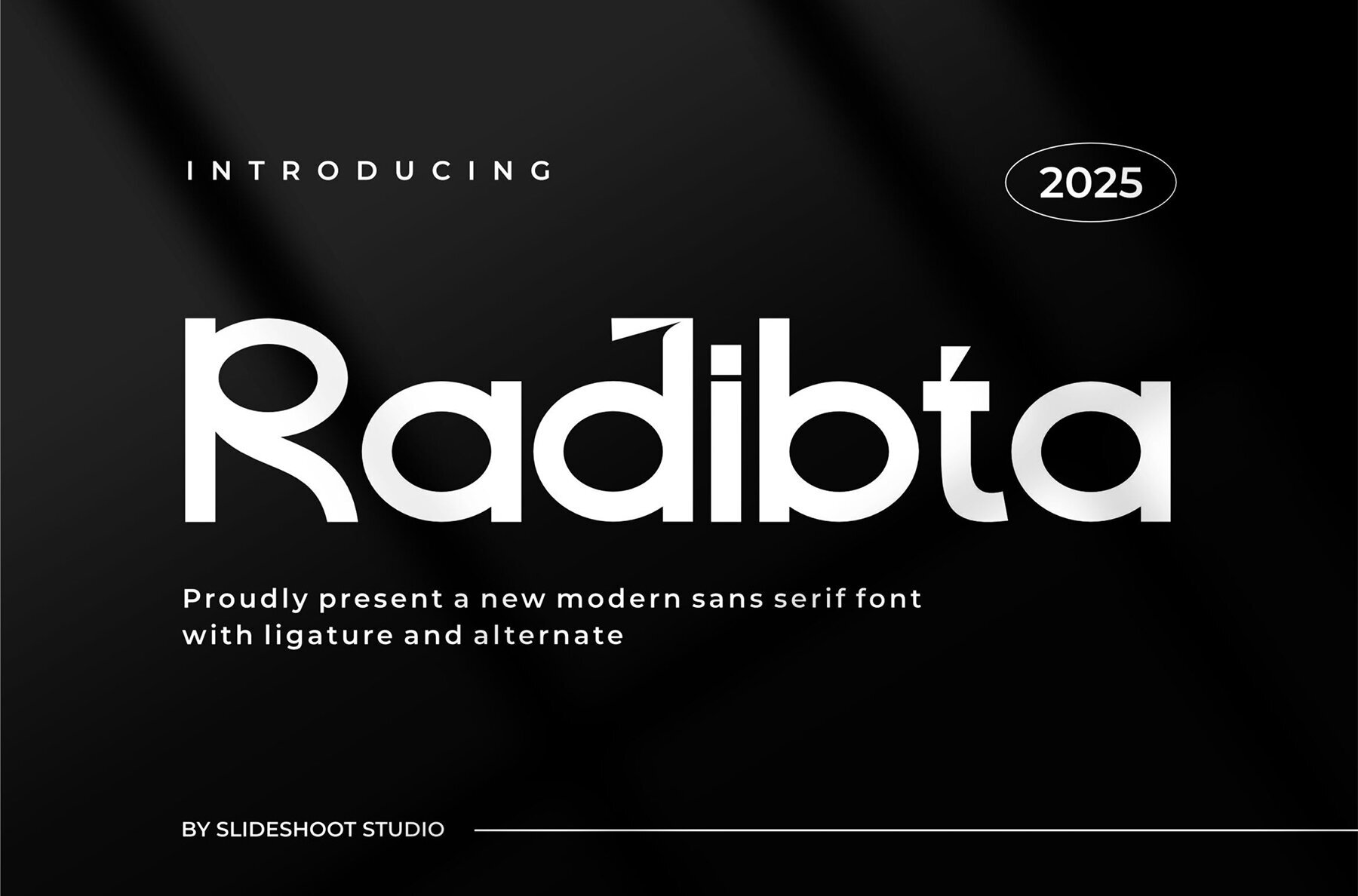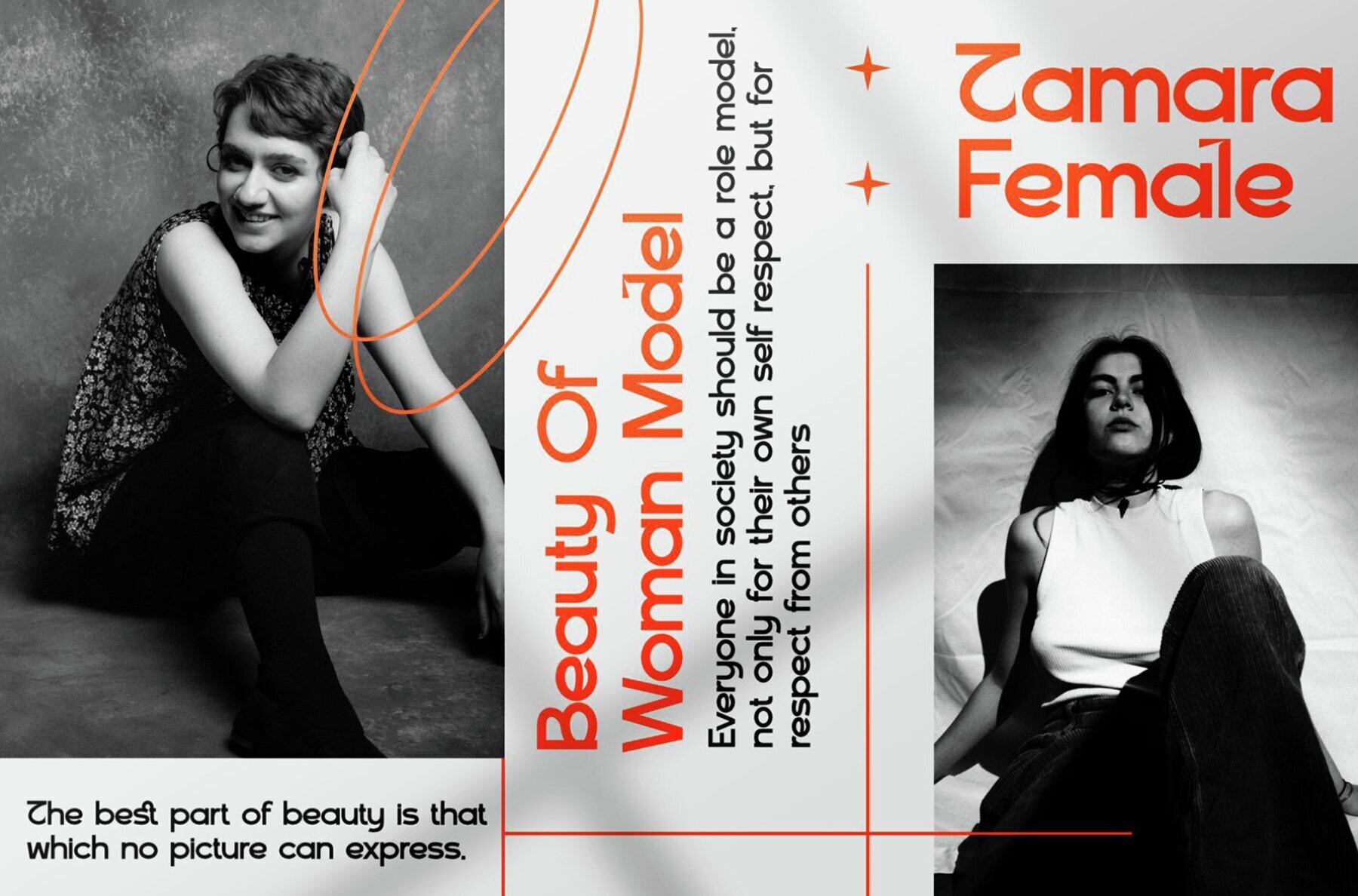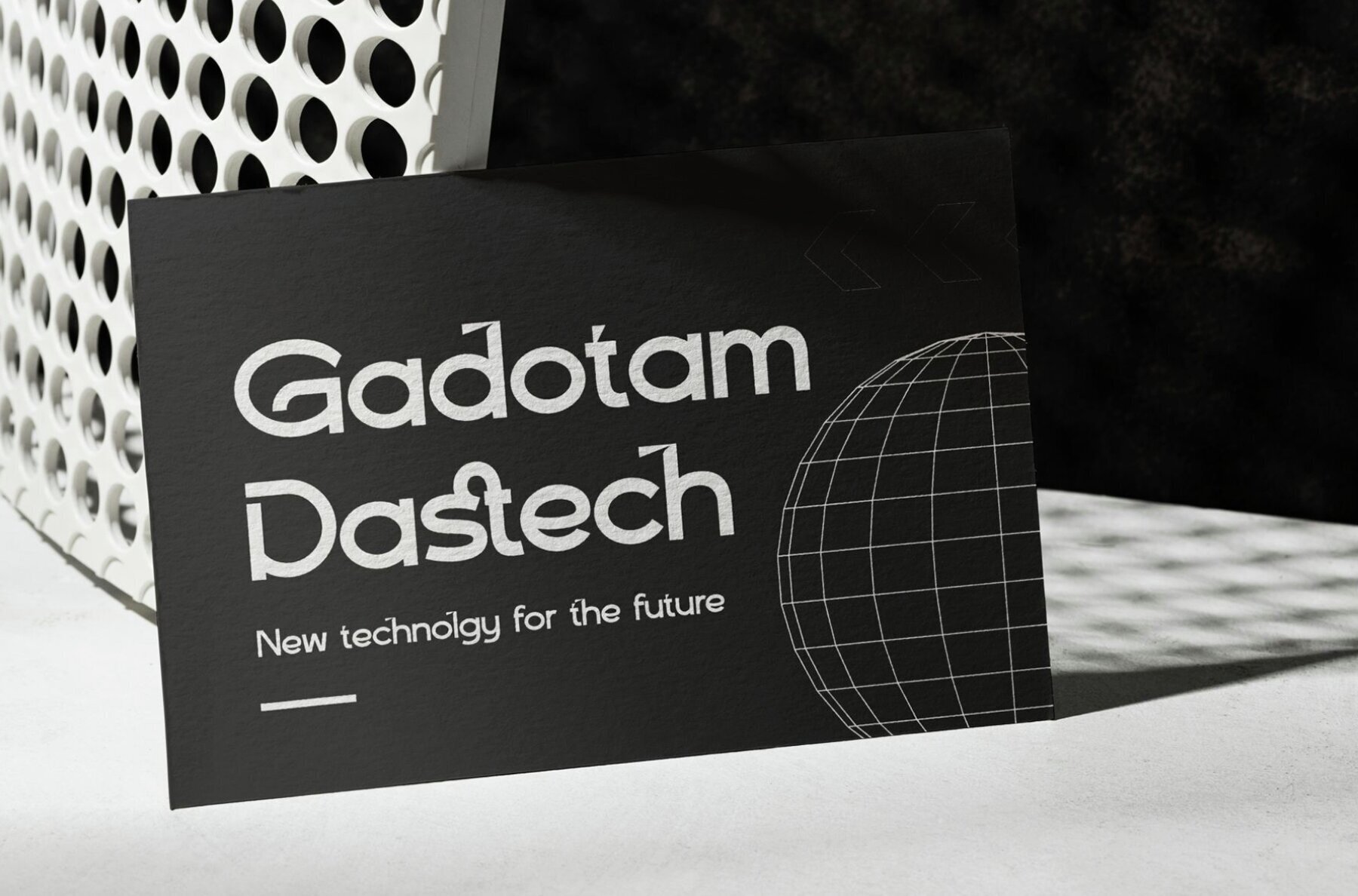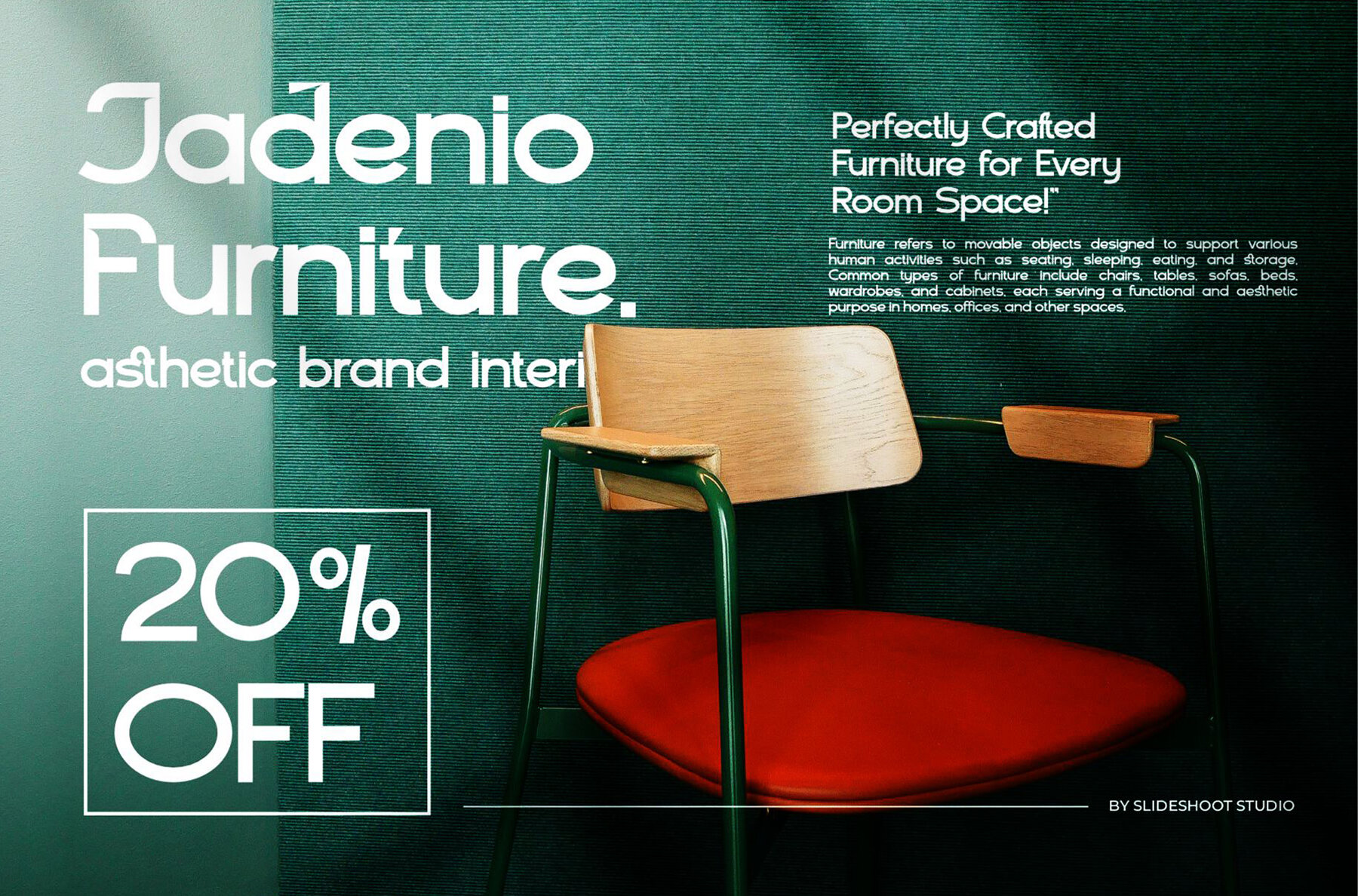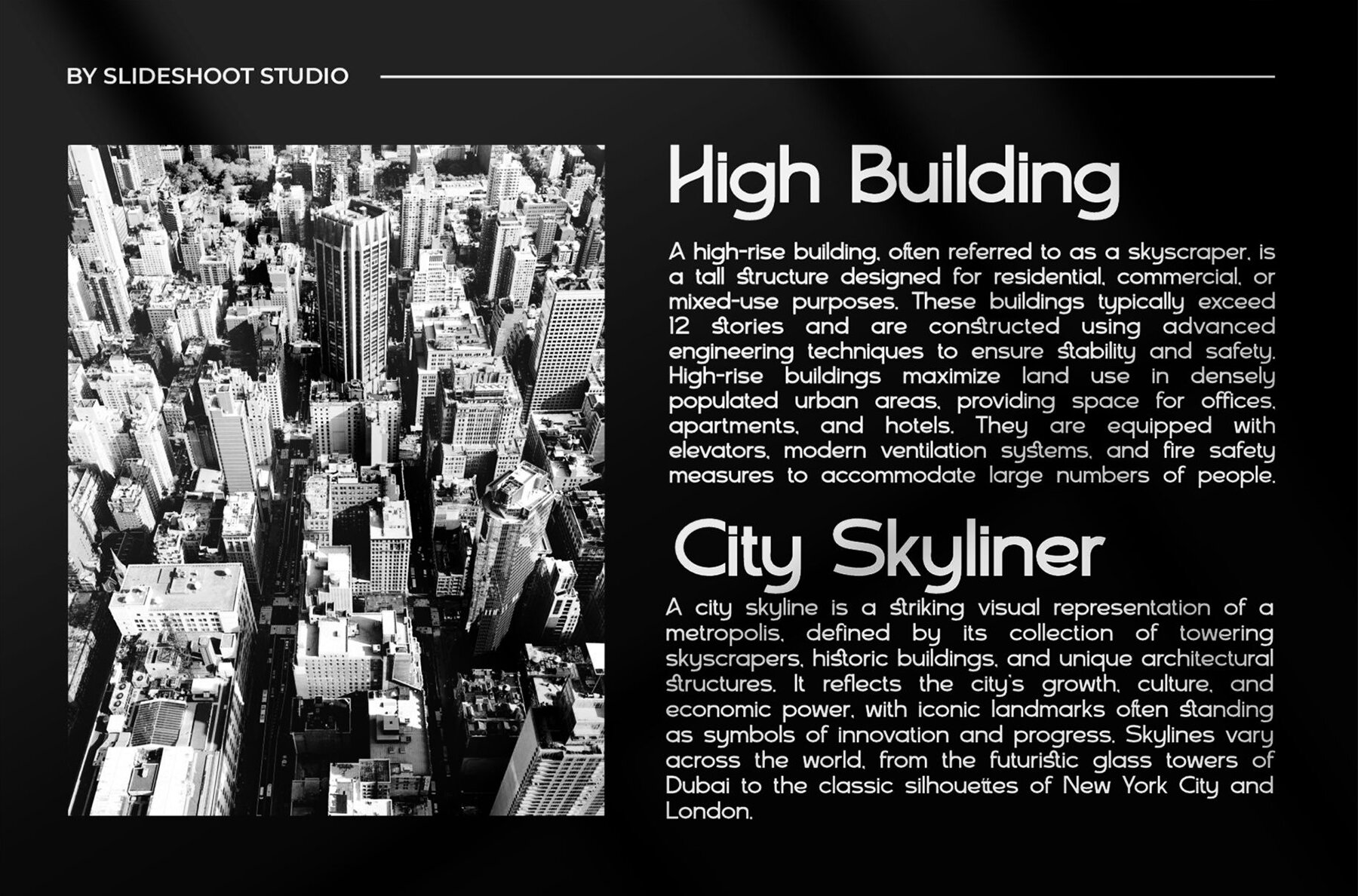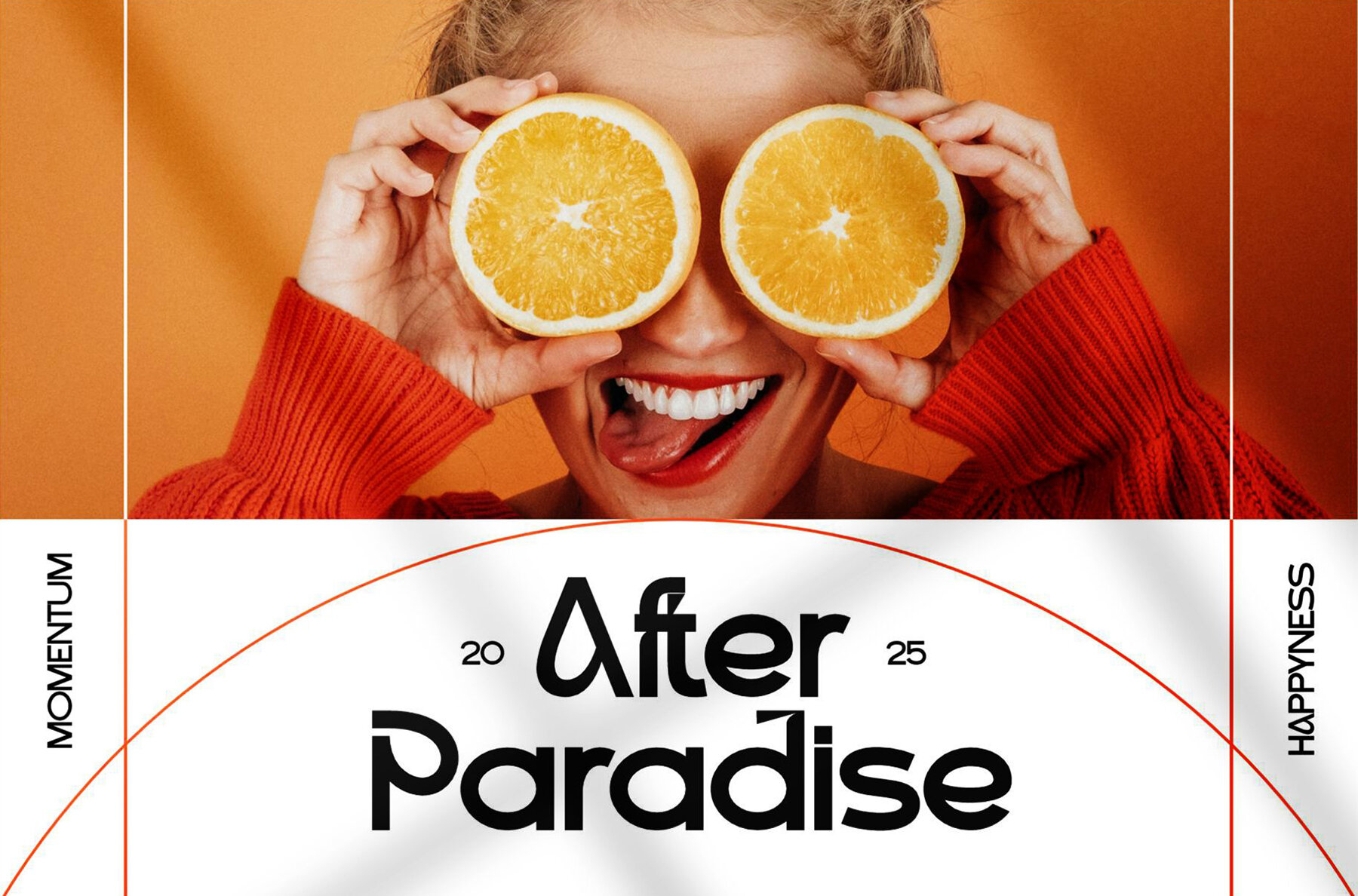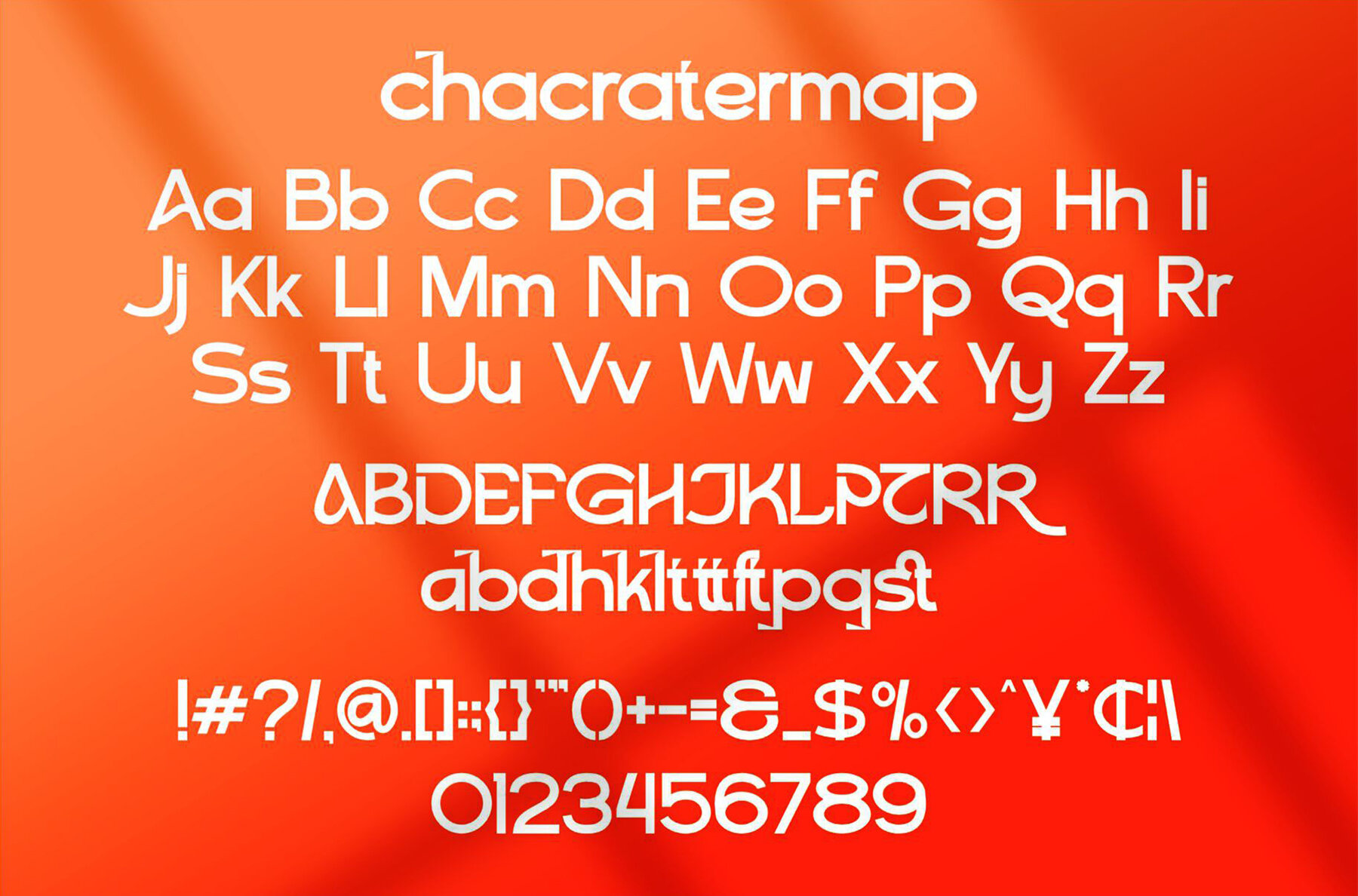
Radibta Font
Radibta
Radibta captures the essence of modern typography with its trendy, bouncy, and whimsical design. Seamlessly blending playfulness with a wood-inspired theme, this sans serif font adds a unique touch to any project. Its versatility shines through in diverse applications, making it an ideal choice for invitation cards, company logos, movie titles, business cards, and book covers.Radibta: A Bouncy Sans Serif Adventure